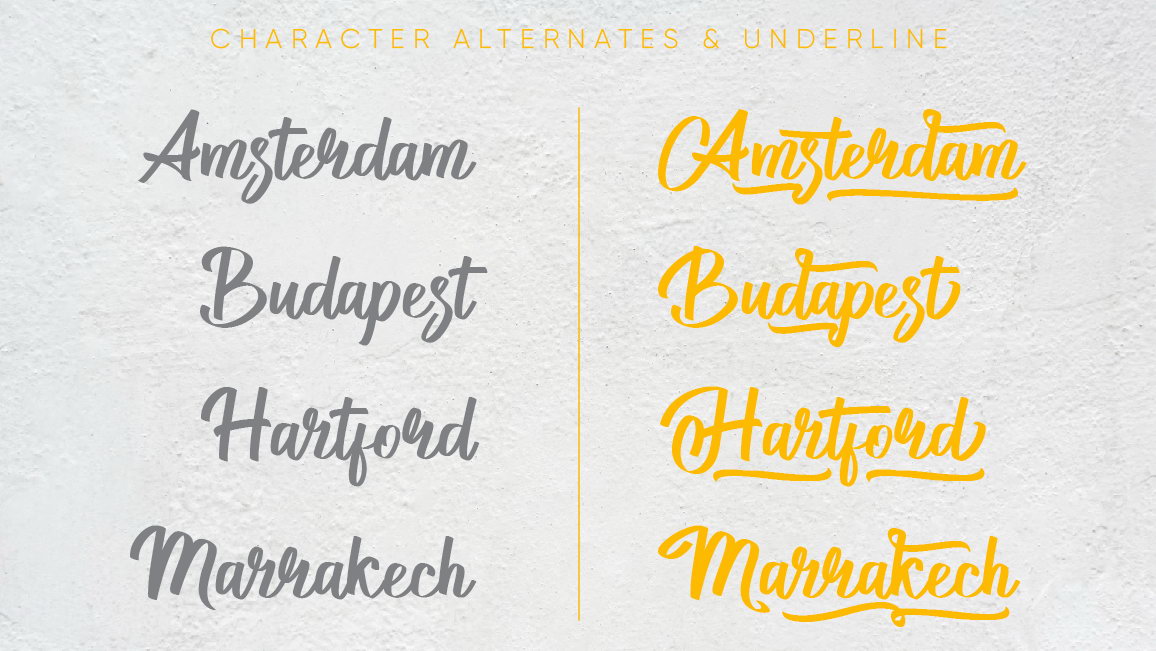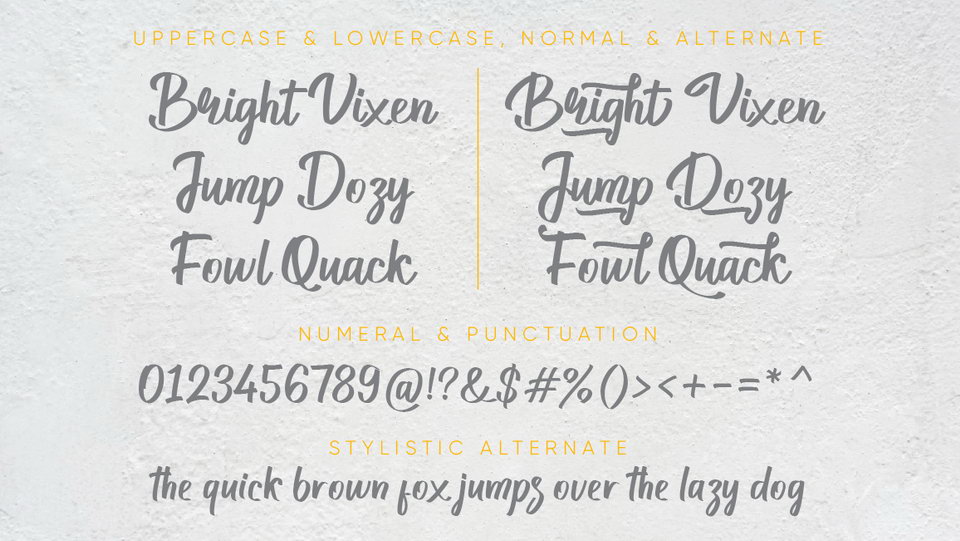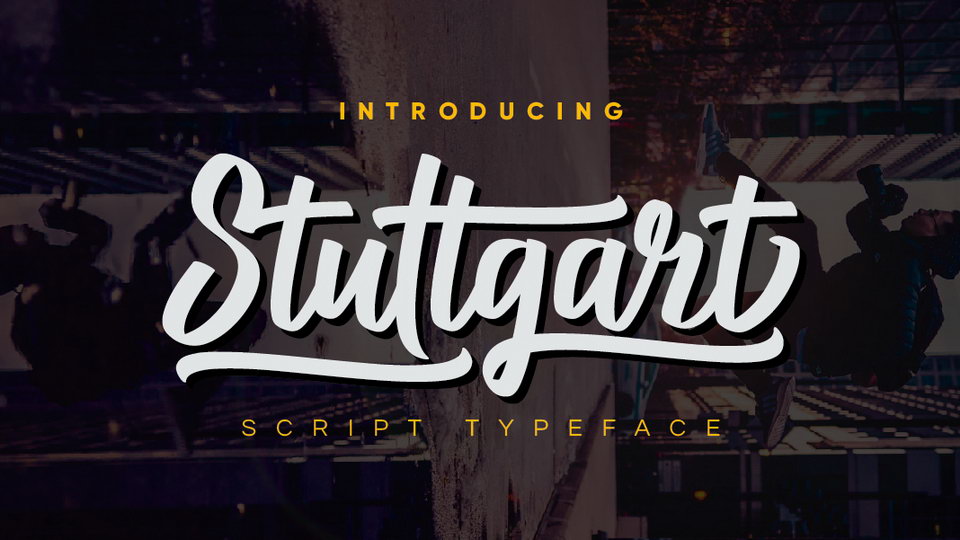
Stuttgart Script
Stuttgart is an attractive modern calligraphy script font. It contains full set of glyphs, including uppercase and lowercase letters, numbers, symbols, alternates, ligatures and swashes with multilanguage support.
Stuttgart script font is suitable for young, passionate design, such as logo design, t-shirts, branding, and various other design purposes. it is perfect for designing your own brand and for other branding designs, these letters look perfect on all printing techniques, foil emboss, embroidery, and others.
Designed by: Studio AKTYPE